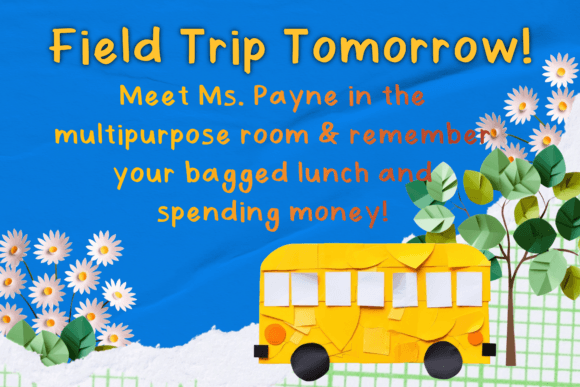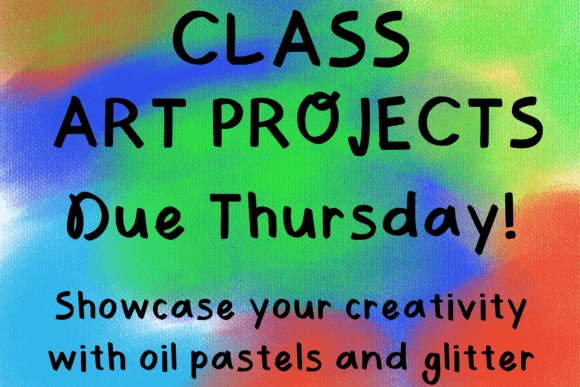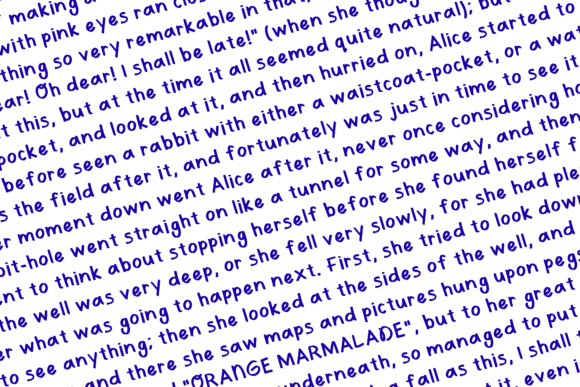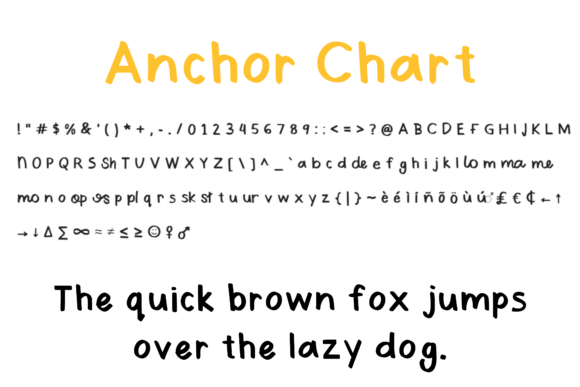
Introducing Anchor Chart: A Bold Font that Adds a Personal Touch
Are you tired of using the same old fonts in your designs? Do you want to add a personal touch to your craft projects? Look no further than Anchor Chart, a bold and playful hand-lettered font that’s reminiscent of your favorite teacher’s best handwriting.
What is Anchor Chart Font?
Anchor Chart is a fun and playful font that’s designed to look like it was written with a marker. It’s a hand-lettered font that’s bold, yet elegant, and is perfect for adding a personal touch to your designs. Whether you’re a designer, crafter, or DIY enthusiast, Anchor Chart is a great font to have in your toolkit.
Characteristics of Anchor Chart Font
So, what makes Anchor Chart font so special? Here are a few of its key characteristics:
- Hand-lettered: Anchor Chart is a hand-lettered font, which means that each letter was carefully crafted to look like it was written by hand.
- Marker-style: The font has a marker-style feel to it, which gives it a bold and playful look.
- Bold: Anchor Chart is a bold font that’s perfect for making a statement.
- Playful: The font has a playful feel to it, which makes it perfect for use in craft projects, DIY tutorials, and other creative endeavors.
Uses for Anchor Chart Font
So, what can you use Anchor Chart font for? The possibilities are endless! Here are a few ideas to get you started:
- Craft projects: Anchor Chart is perfect for use in craft projects, such as making signs, banners, and other DIY decorations.
- Design projects: The font is also great for use in design projects, such as creating logos, brochures, and other marketing materials.
- DIY tutorials: Anchor Chart is a great font to use in DIY tutorials, such as crafting tutorials, recipe cards, and other instructional materials.
- Handmade products: If you sell handmade products, such as jewelry, candles, or soap, Anchor Chart is a great font to use on your labels and packaging.
Tips for Using Anchor Chart Font
Here are a few tips for using Anchor Chart font in your designs:
- Use it sparingly: Because Anchor Chart is a bold font, it’s best to use it sparingly to avoid overwhelming your design.
- Pair it with other fonts: Anchor Chart looks great when paired with other fonts, such as serif or sans-serif fonts.
- Experiment with colors: The font looks great in a variety of colors, so don’t be afraid to experiment and find the perfect color for your design.
Anchor Chart is a bold and playful font that’s perfect for adding a personal touch to your designs. With its hand-lettered, marker-style feel, it’s perfect for use in craft projects, design projects, DIY tutorials, and other creative endeavors. So why not give it a try and see what you can create with Anchor Chart font?
- What type of font is Anchor Chart? Anchor Chart is a hand-lettered, marker-style font.